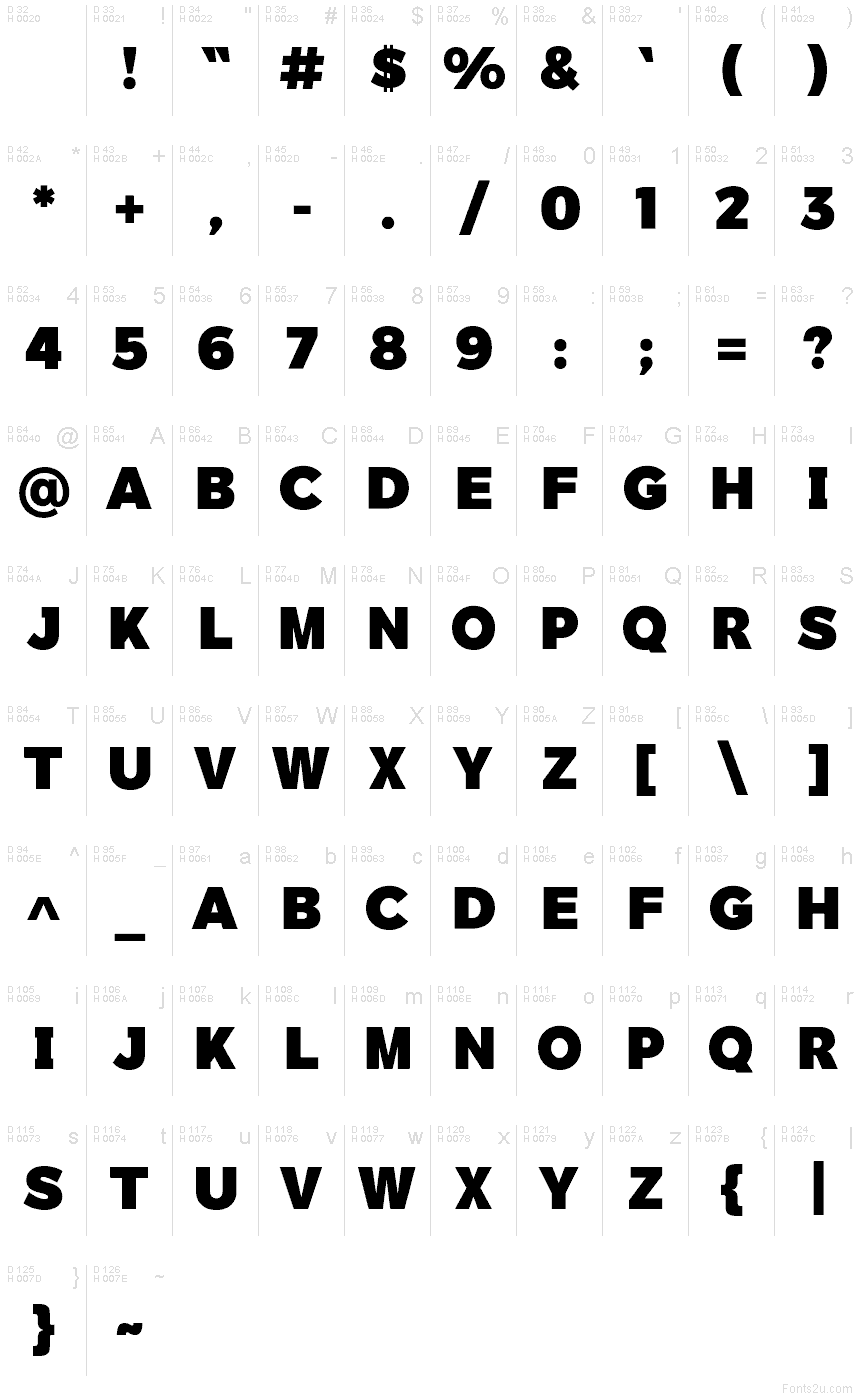
Packy Great
Packy Great font by Graphicxell is a bold sans serif font that boasts an impactful appearance with its blocky, geometric design. With a clear retro influence, Packy Great delivers a strong presence and sturdy structure that makes any text hard to ignore; therefore readers are bound to remember whatever it states.